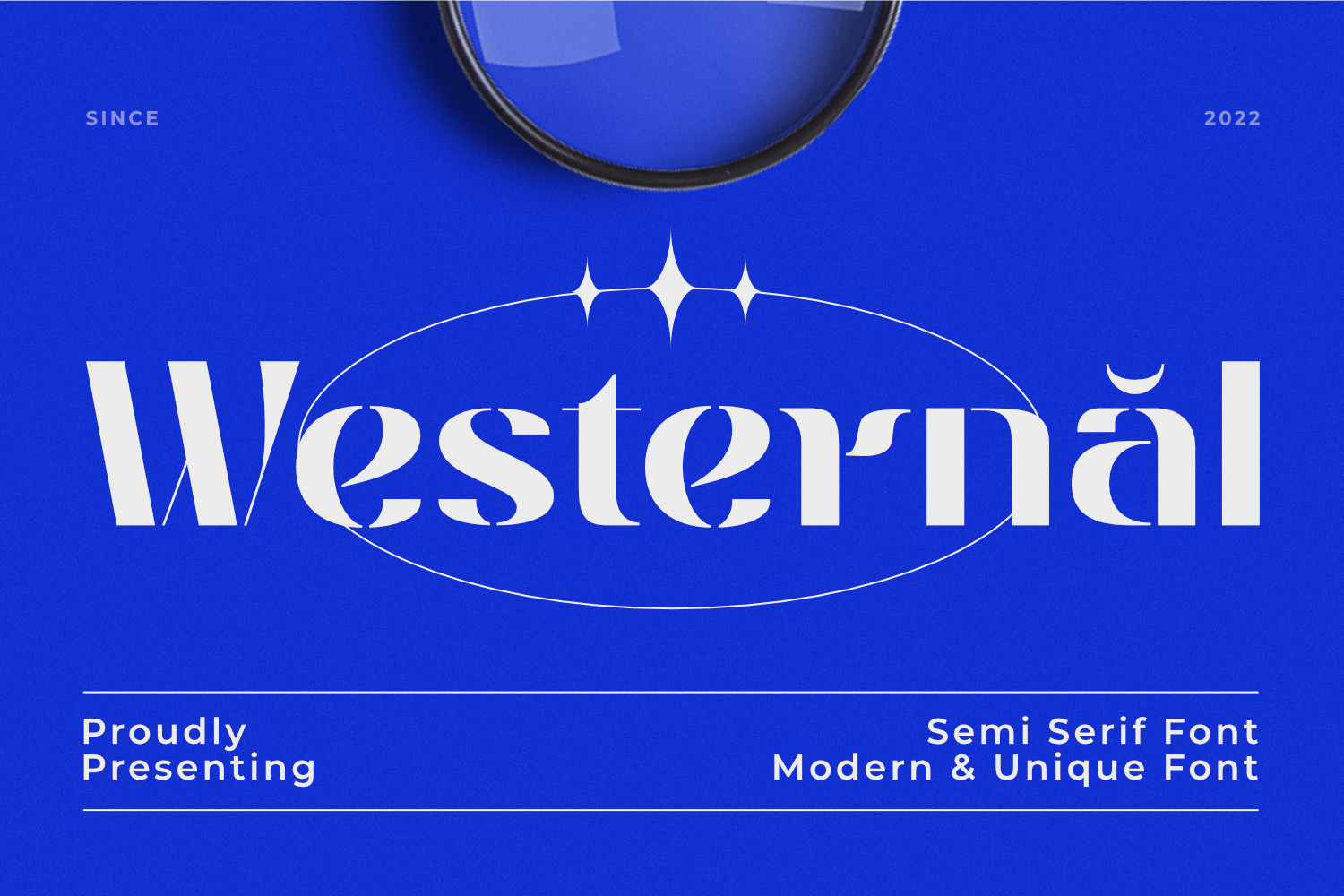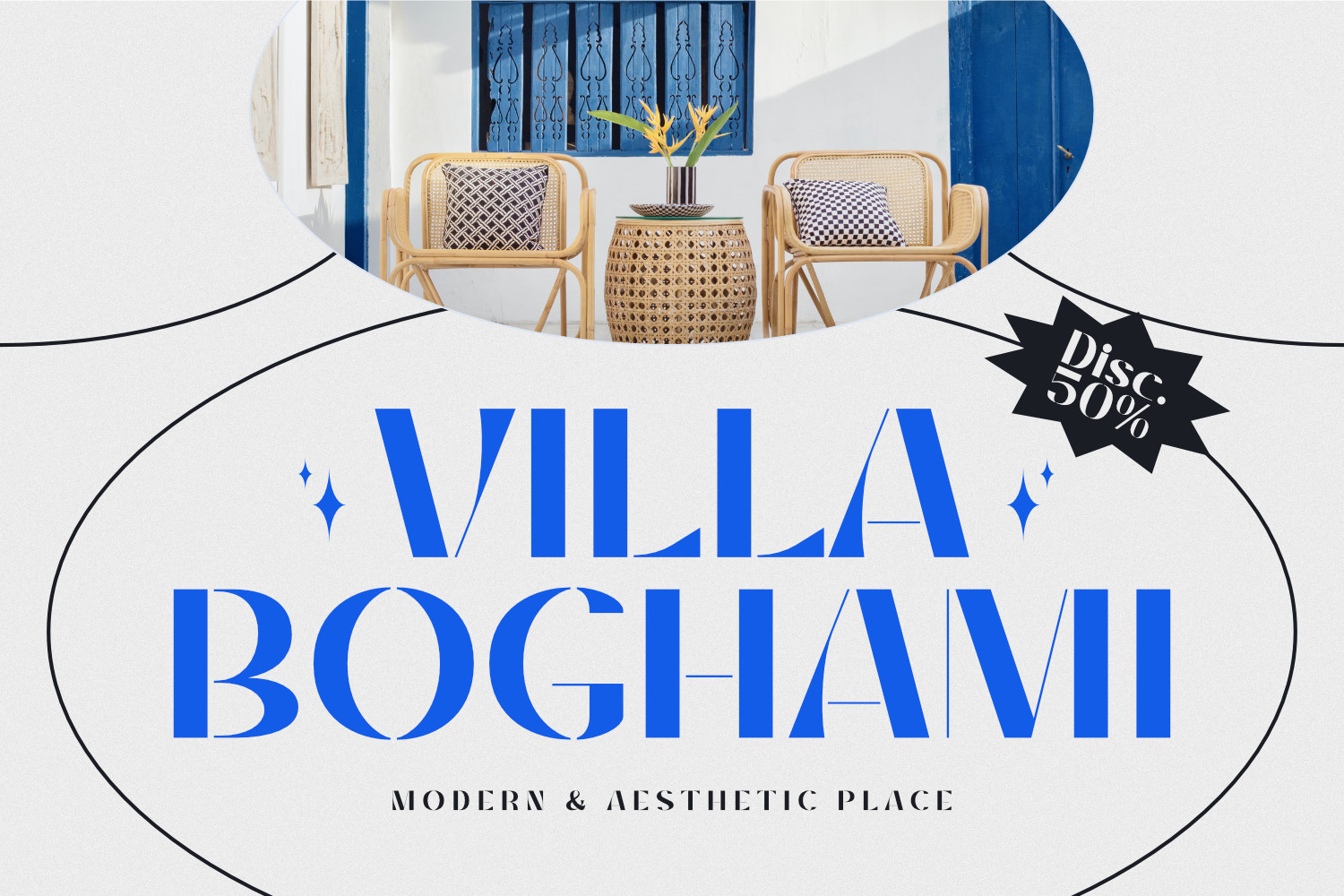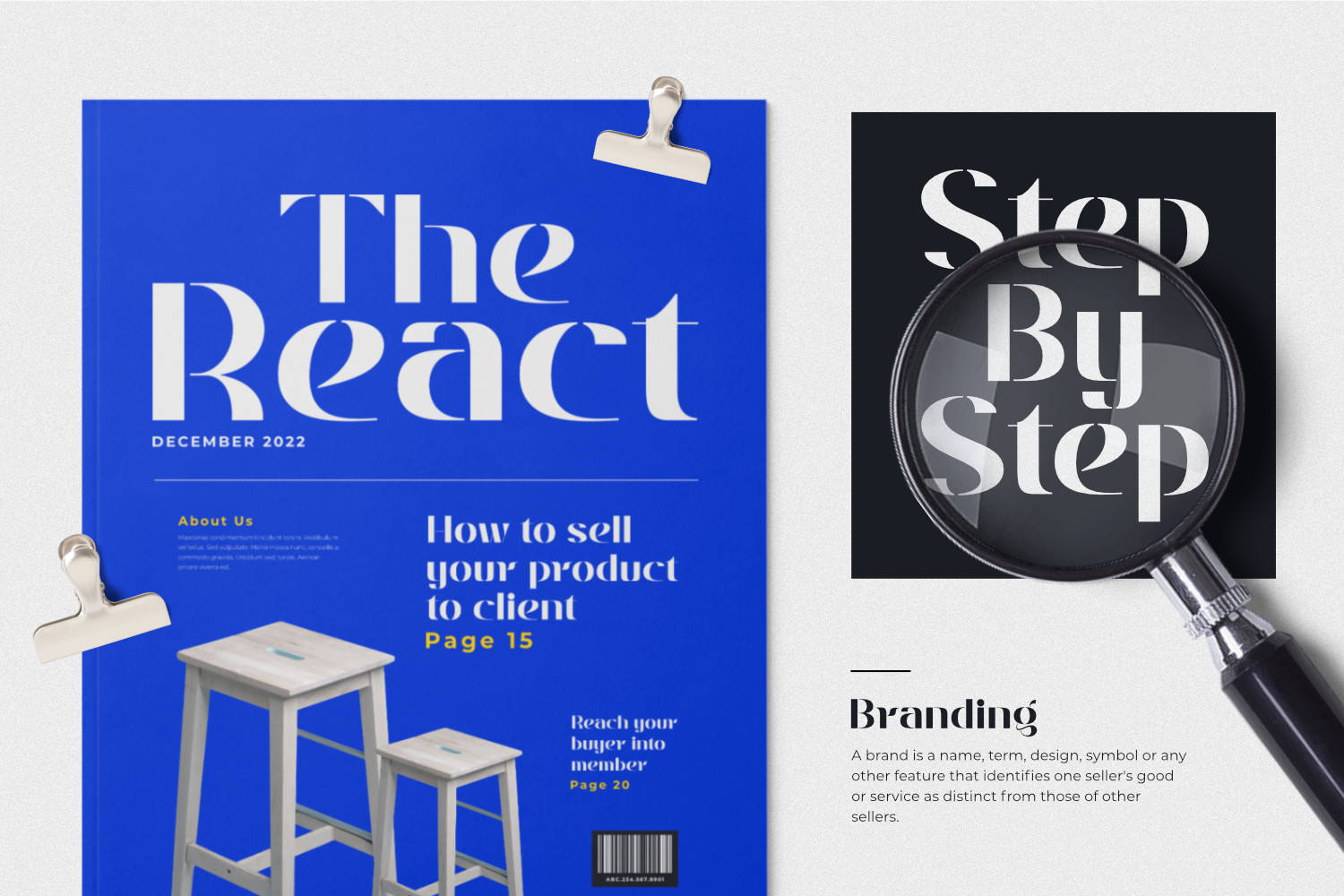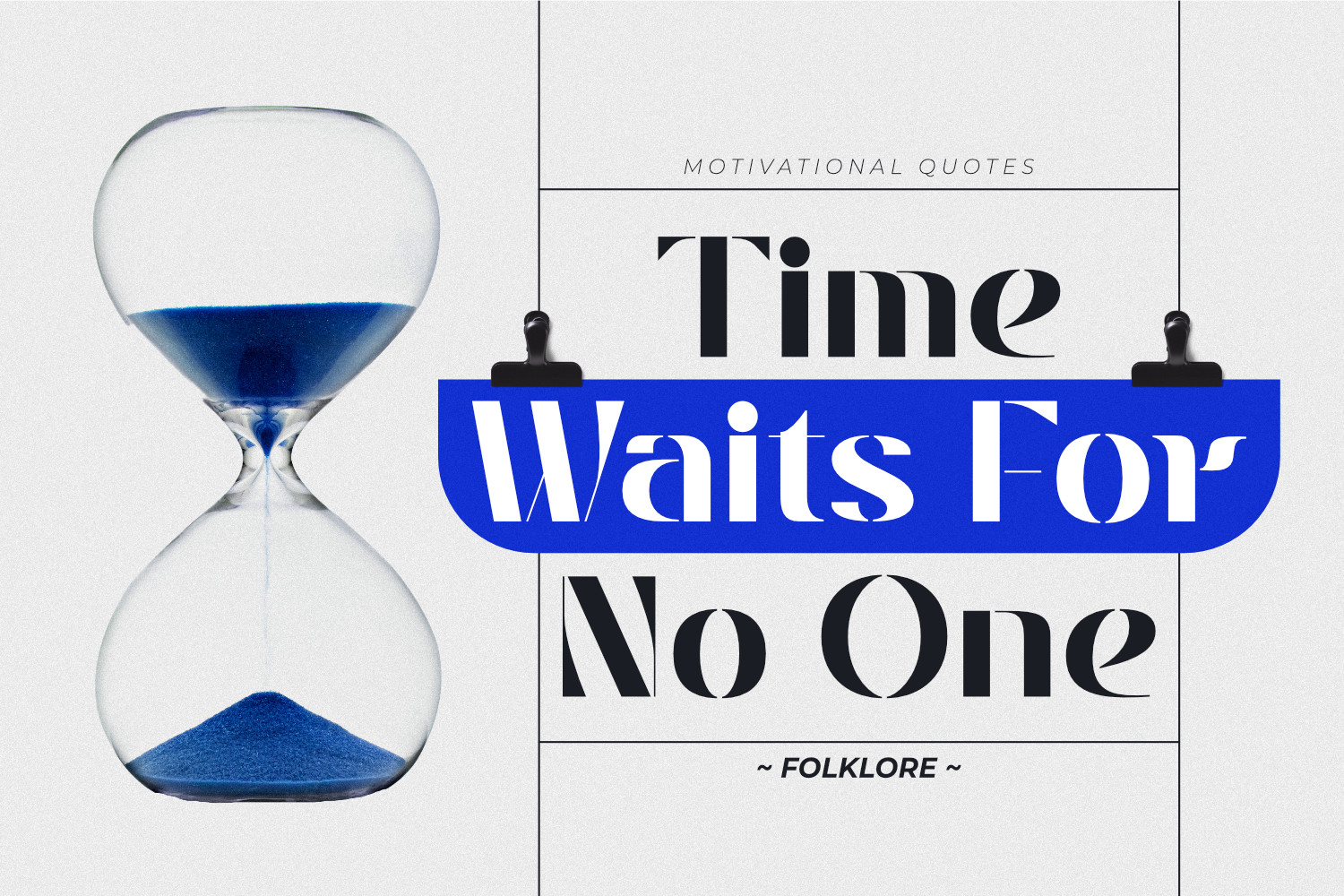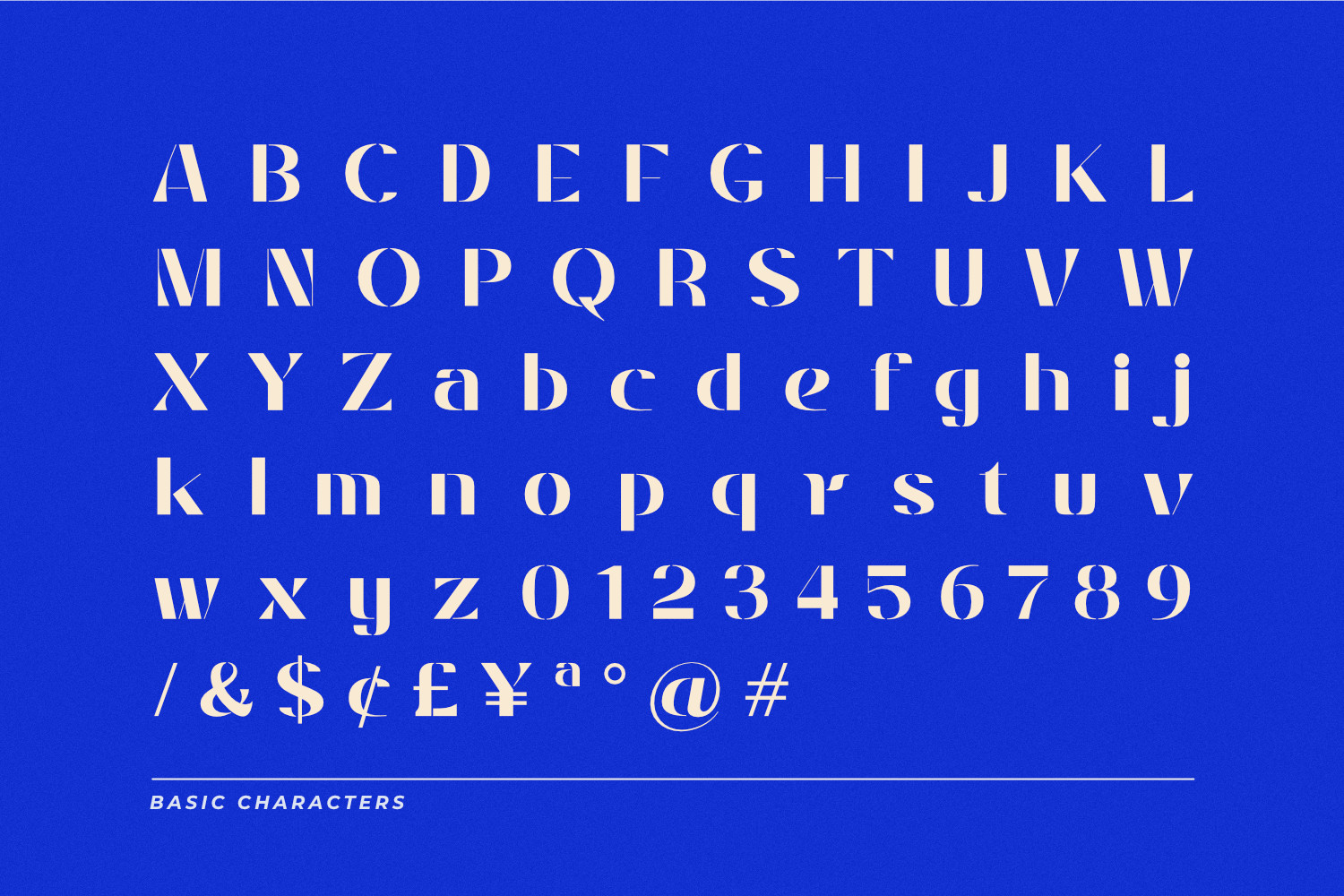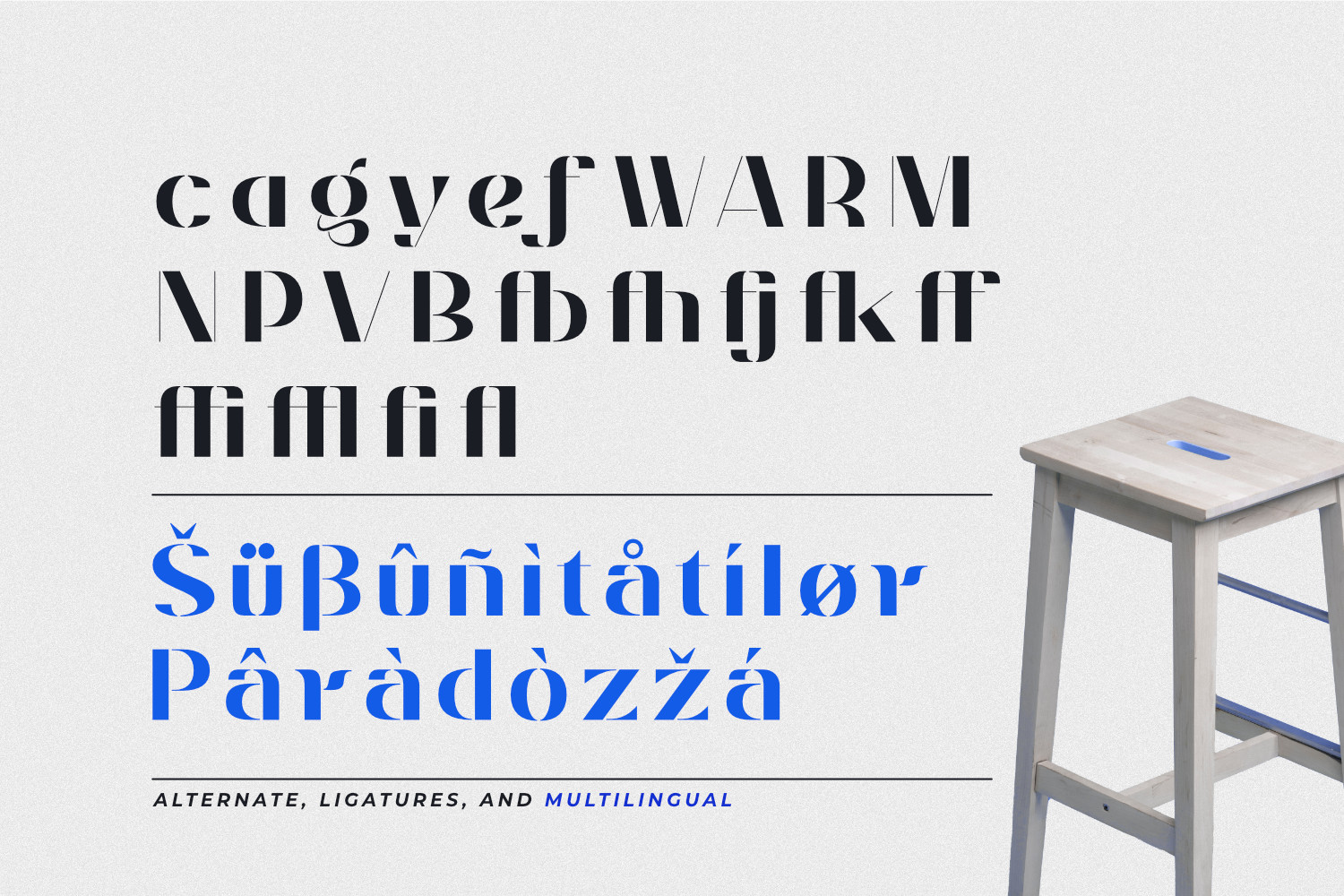
Westernal is a bold and stylish semi serif font that blends modern minimalism with distinctive letterform cuts. With its geometric influence and sharp edges, Westernal adds personality to headlines, branding, magazine covers, and editorial layouts. The font’s aesthetic makes it an excellent choice for upscale designs that aim for clarity with flair.
Equipped with alternate characters and multilingual support, Westernal gives designers creative flexibility while maintaining consistency in tone. Whether used in fashion spreads, visual identities, or digital advertisements, it offers a modern typographic edge that stands out effortlessly.